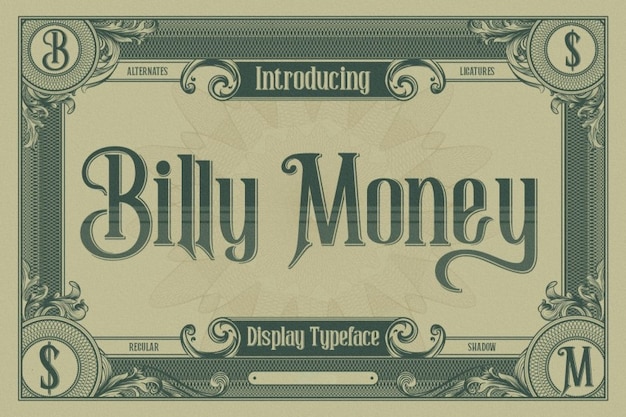
Billy Money
Billy Money Font
This typeface is worth stealing, but it's free! The Billy Money font has a retro look and comes in two typefaces: regular and shadow that will both perfectly suit to your projects. We assure you that there is no better way to boost your creations than using this worthy font. Download it now!